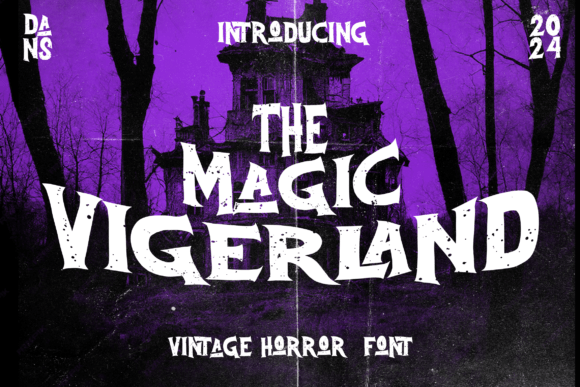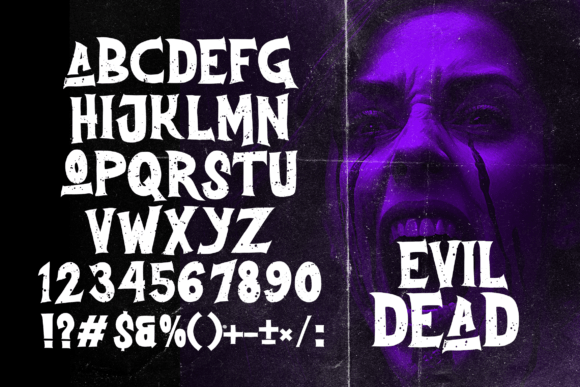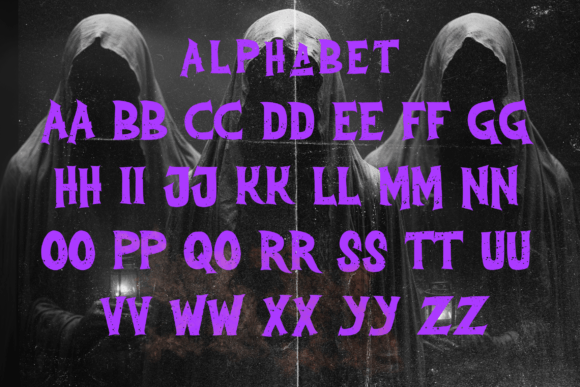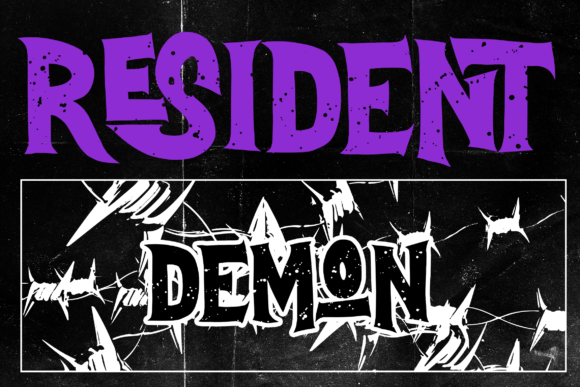
Magic Vigerland Font
About the Magic Vigerland Font
Presenting Magic Vigerland Font, a unique and stylish typeface that will make your work stand out. The Magic Vigerland Horror Y2k Graffiti Font
The Magic Vigerland Horror Y2k Graffiti Font is a distinct, highly detailed, Horror Y2k Graffiti Font.
It would make a great choice for exquisite Music, Posters, retro-urban designs, business branding, logos, vintage designs, and more.
Magic Vigerland excels in headline treatments, posters, and branding projects requiring a bold, rebellious aesthetic. Its highly detailed nature makes it ideal for impactful short text, logos, and even packaging where it can create a strong visual statement. However, its intricate details and aggressive style are unsuitable for body text or UI elements; readability suffers at smaller sizes.
This font’s core personality is aggressive and attention-grabbing. It works best for brands projecting a strong, edgy, or retro-futuristic image. Think streetwear, independent music, horror-themed projects, or other ventures that benefit from a high-impact visual presence.
To balance its strong character, pair Magic Vigerland with a clean sans-serif like Futura or a minimalist geometric font such as Bebas Neue for contrast. For a slightly softer yet still modern feel, consider pairing it with a more rounded sans-serif like Open Sans or a neutral serif like Lora.
Magic Vigerland Font Usage Examples
Magic Vigerland Font Example